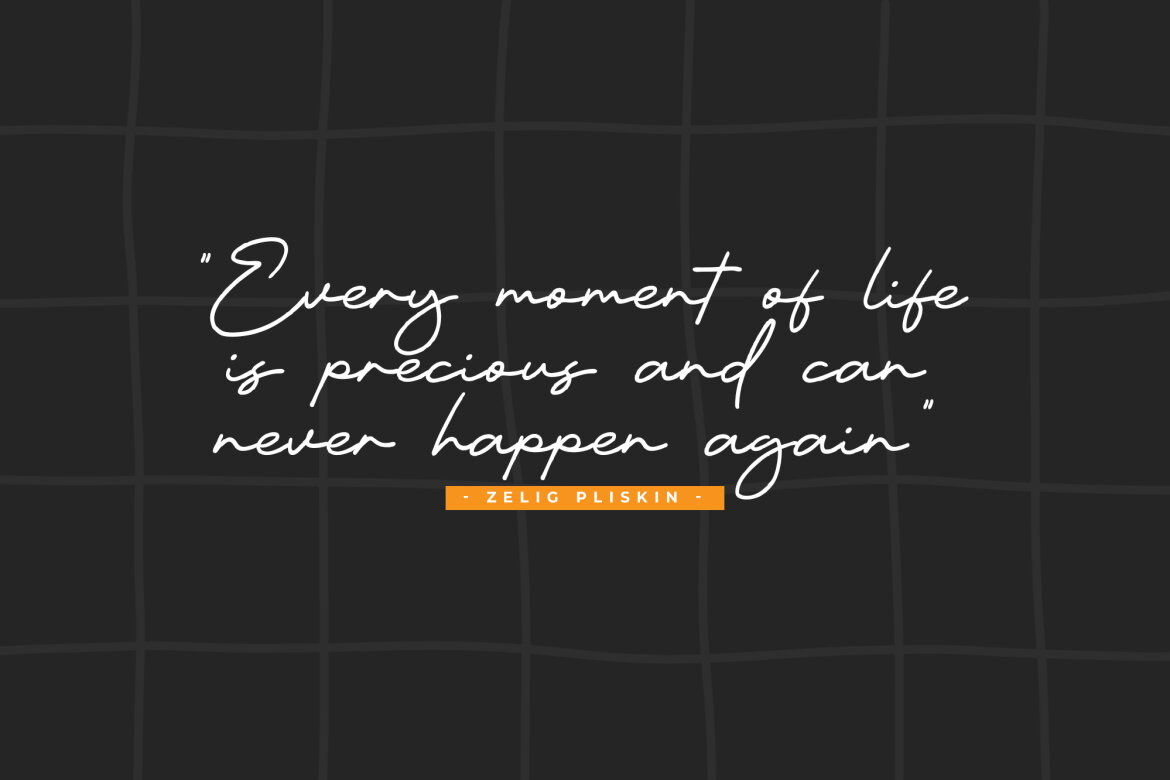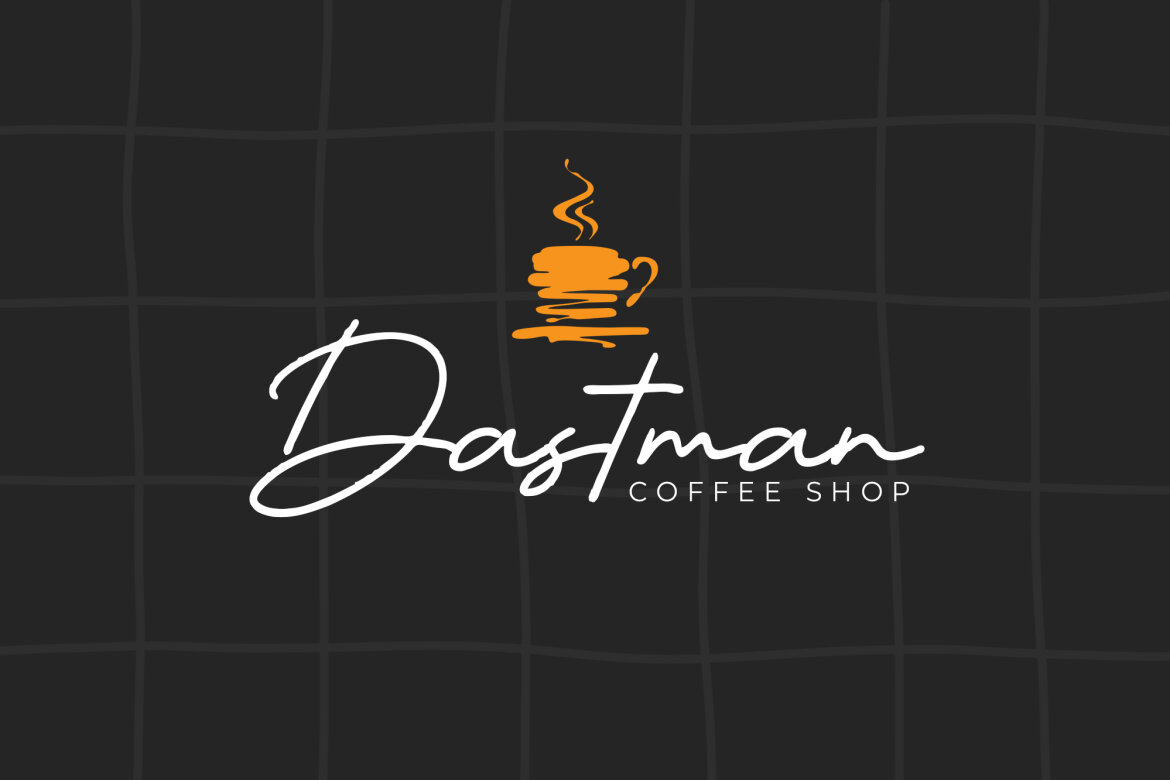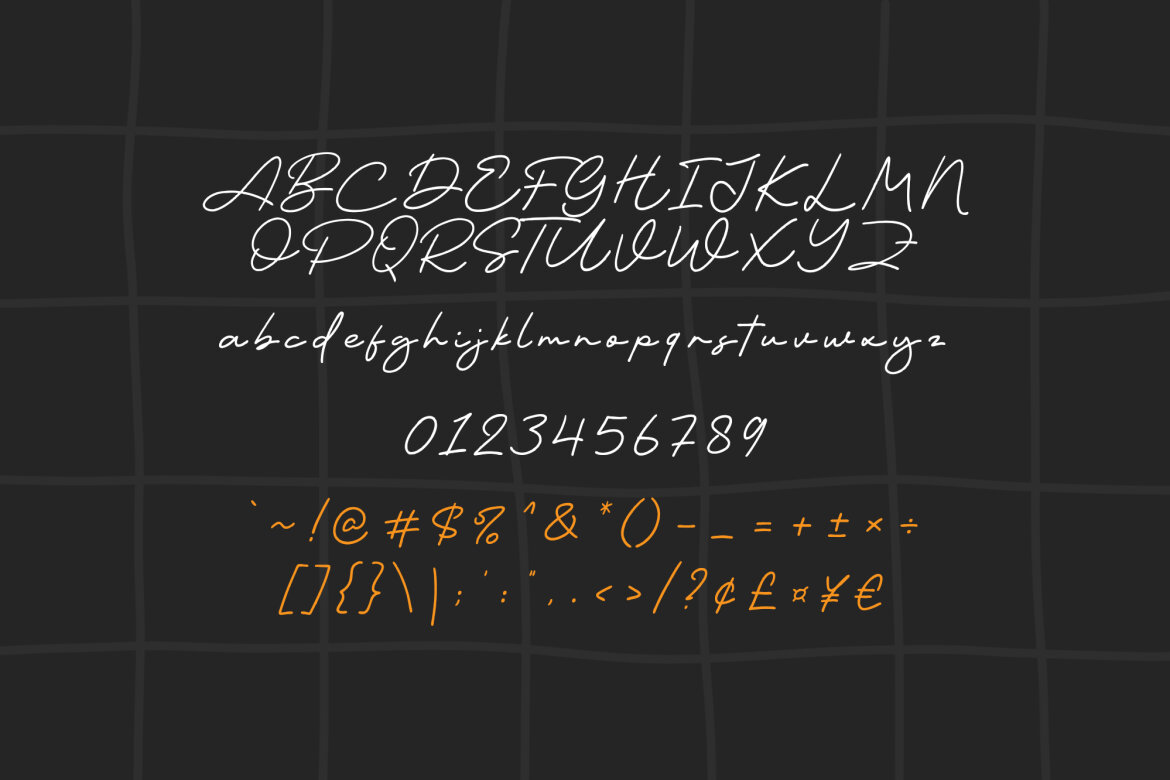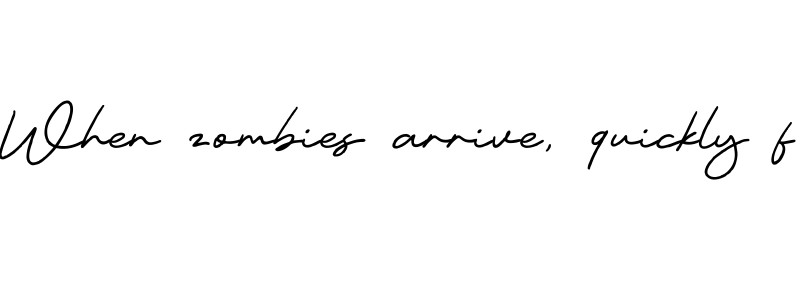
Patung Free Script Font
Patung
Patung is a modern and beauty handwriting font perfect for posters, logos, magazines, book covers, banners, and many more! Get this amazing font, and use it to create lovely designs. It can easily be matched to an incredibly large set of projects, so add it to your creative ideas and notice how it makes them stand out!